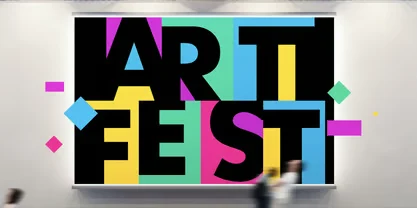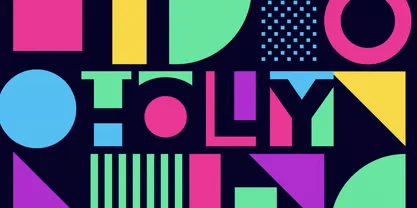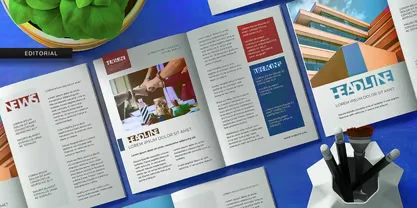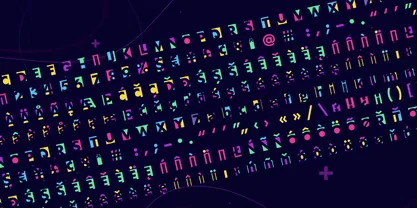
About Festiva Font
I’m a typographer and graphic designer who loves exploring typefaces that bring personality to projects. While preparing a branding package for an entertainment client, I came across the Festiva Font free demo. Its geometric display style and vibrant energy felt different from other typefaces I had tested. I used it on greeting cards, event graphics, and a playful headline design. The results were striking, which made me confident enough to recommend it. Writing this review allows me to share how it performs in real-world projects so other creatives can decide if this font fits their style.
The Font Type and the Designer
Festiva is a geometric display font designed by Yehor Lisnyi. It focuses on bold shapes, bright forms, and festive energy. Each letter is constructed with a sense of balance, combining solid geometric shapes with creative negative spaces. That mix delivers strong readability while keeping a playful tone.
The design draws inspiration from Mexican and Indian festive vibes, where colorful patterns, bold modern colors, and lively visual traditions are central. This cultural influence gives the typeface an exuberant flavor, making it different from minimal or traditional serif fonts. It’s not subtle—it’s designed to stand out.
It’s a geometric font that blends bold design with versatility, making it a reliable choice for modern creative work.
Features of This Font
Festiva’s strength lies in its personality. The font combines bold geometric shapes with playful negative spaces, creating letterforms that feel both solid and dynamic. Headlines gain impact because the curves and angles draw immediate attention.
The festive aesthetic is clear in every glyph. Bright geometric elements suggest energy, while shaped negatives create movement in the design. This makes it ideal for projects where visual impact is more important than neutrality. Greeting cards, birthday invitations, and entertainment branding all benefit from that lively tone.
Its upper case letters are especially effective in geometric logos, advertising, and poster headlines. The combination of color palettes, typographic flair, and structured shapes delivers versatility for many design projects. Whether you’re working on video games, educational material, or bold advertising campaigns, this display font delivers the creative edge needed to stand out.
Festiva adapts to design contexts that require attention-grabbing visuals. For branding projects, it brings strong character to entertainment logos, product campaigns, and social media graphics. The bold geometric structure makes it reliable for headlines where visibility is key.
Greeting cards and invitations are natural fits. Birthday greetings and festive event designs gain flair and colorful energy when styled with Festiva. It’s equally effective in creative school projects, workshop materials, or playful artwork where typography is meant to inspire.
Its versatile features extend to packaging, advertising, and video game design. With vibrant colors, bold modern shapes, and strong readability, Festiva works in both print and screen-based environments. Wherever a festive vibe or creative edge is needed, this font is an effective choice.